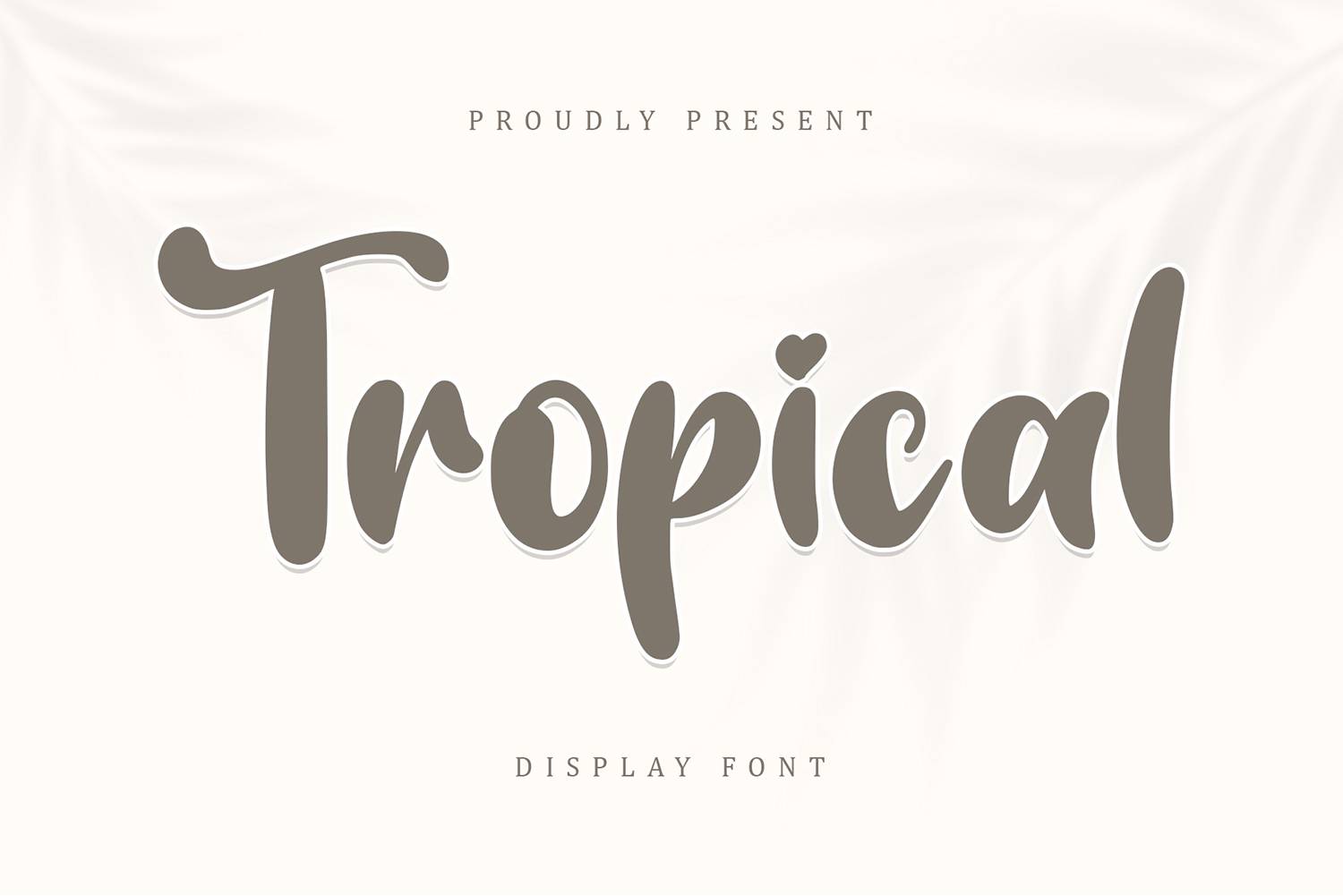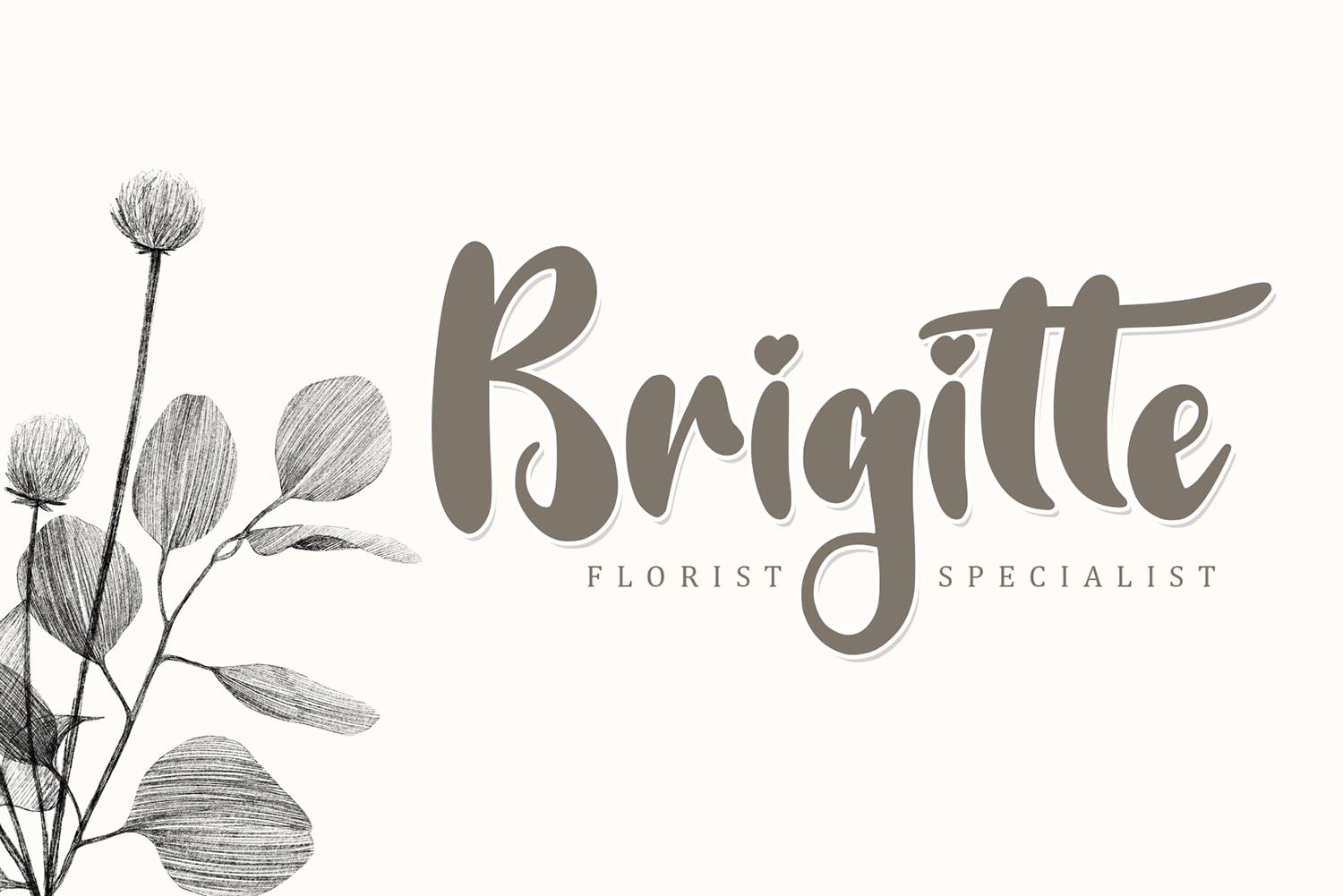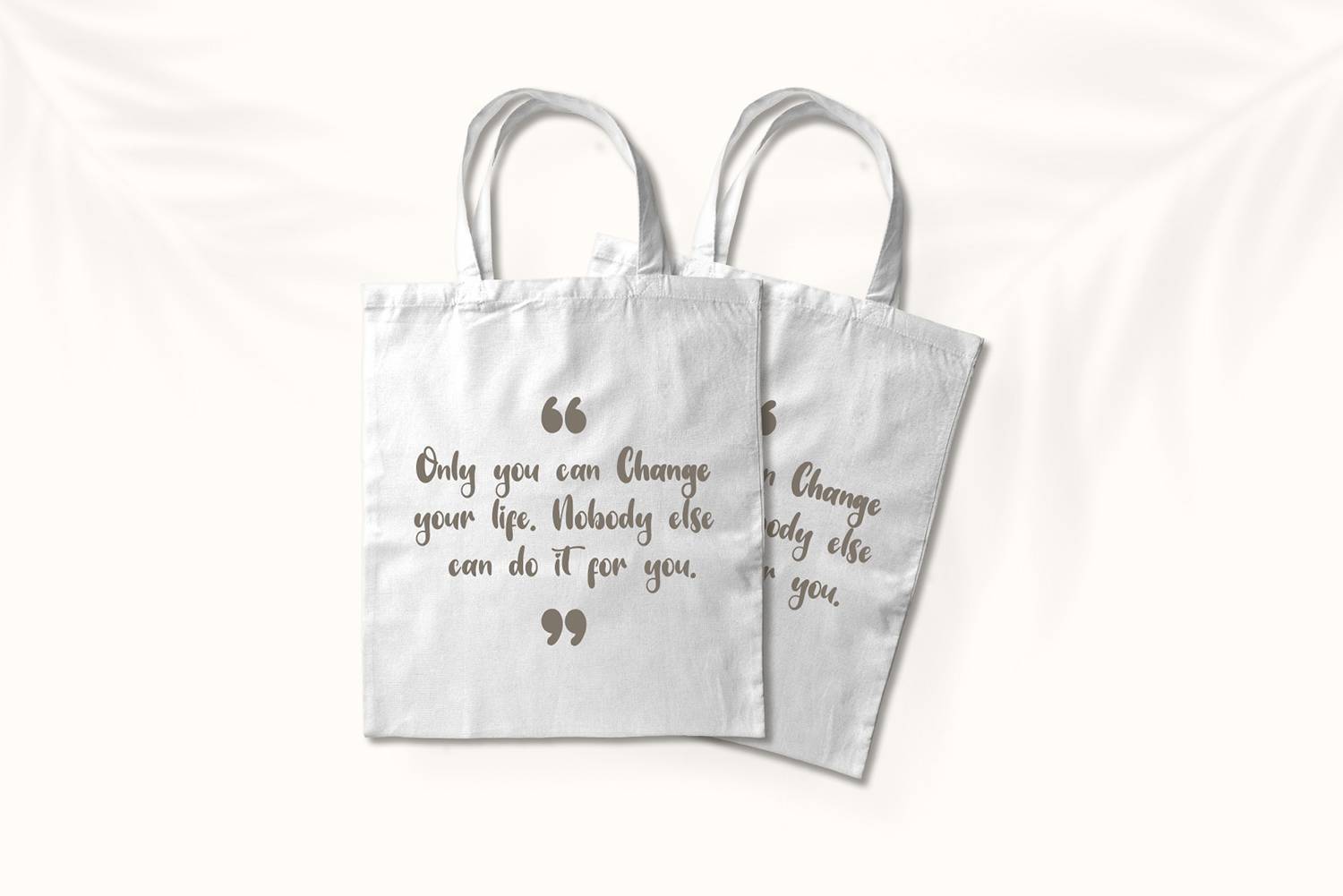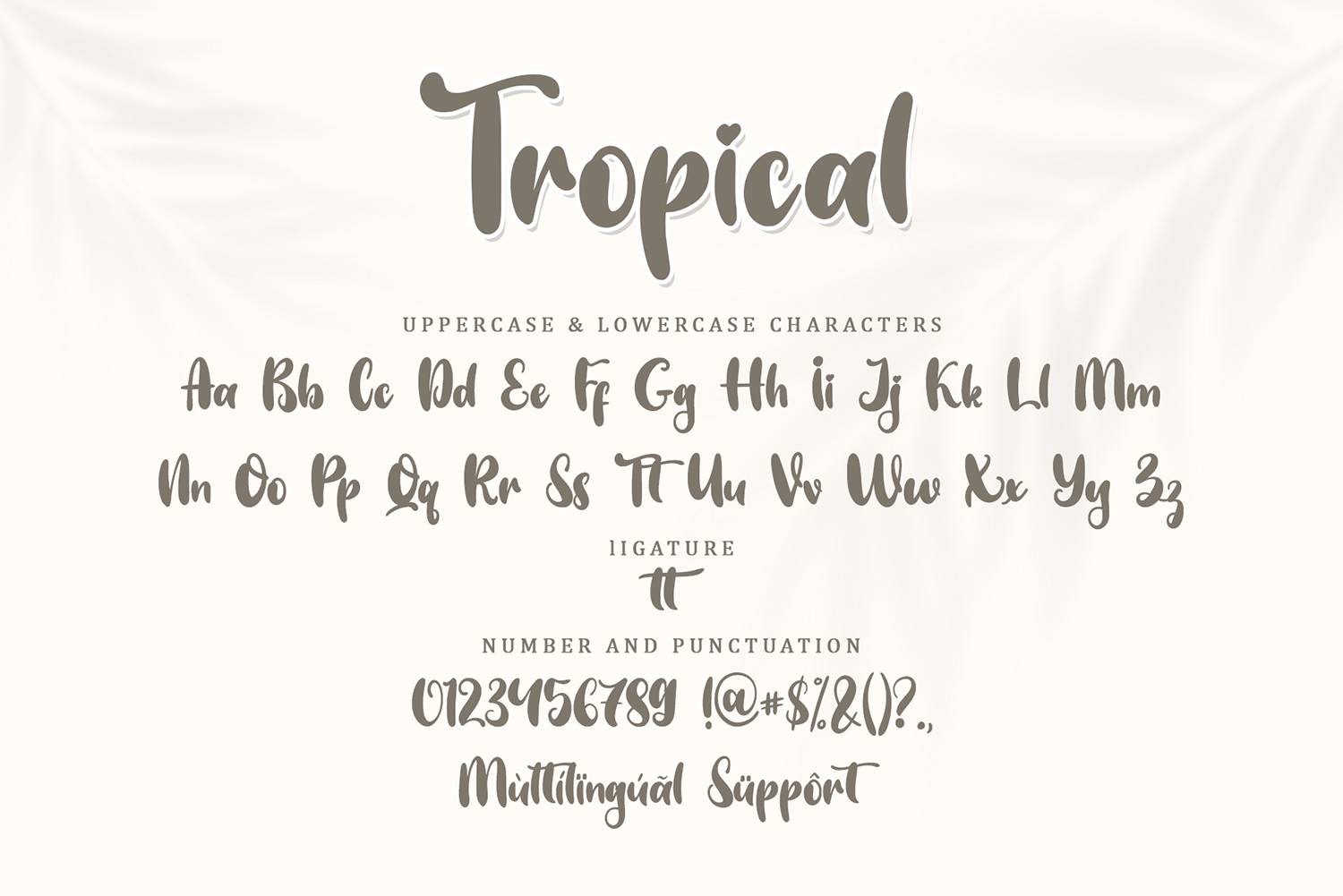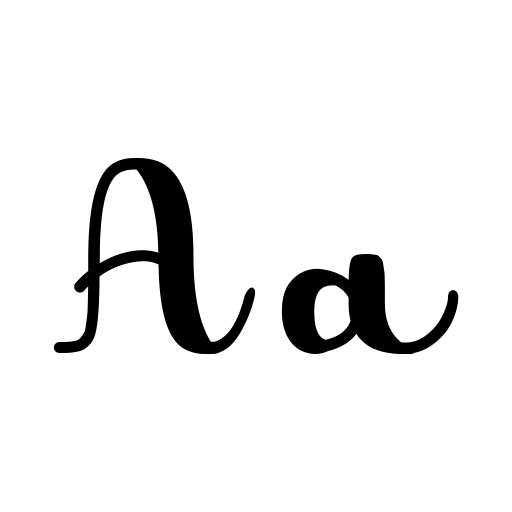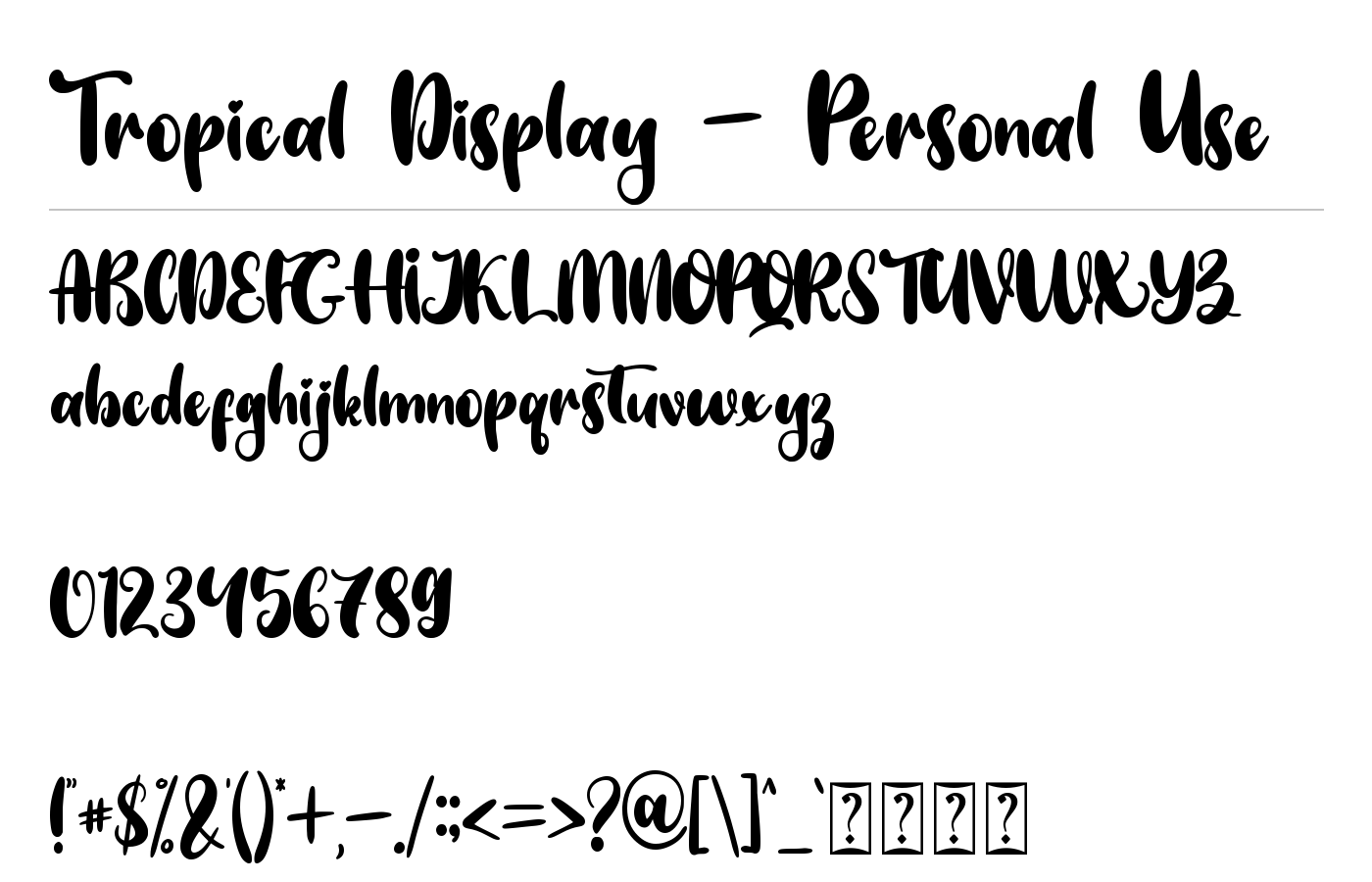
Tropical Font is a lively and bold script typeface with a playful, handcrafted feel. Its thick, rounded strokes and whimsical letterforms make it perfect for designs that want to convey warmth, friendliness, and a casual, tropical vibe. This font works well for branding, posters, and packaging that aim to feel inviting and fun.
Tropical Font
About Tropical Font
| Font family | Tropical Font |